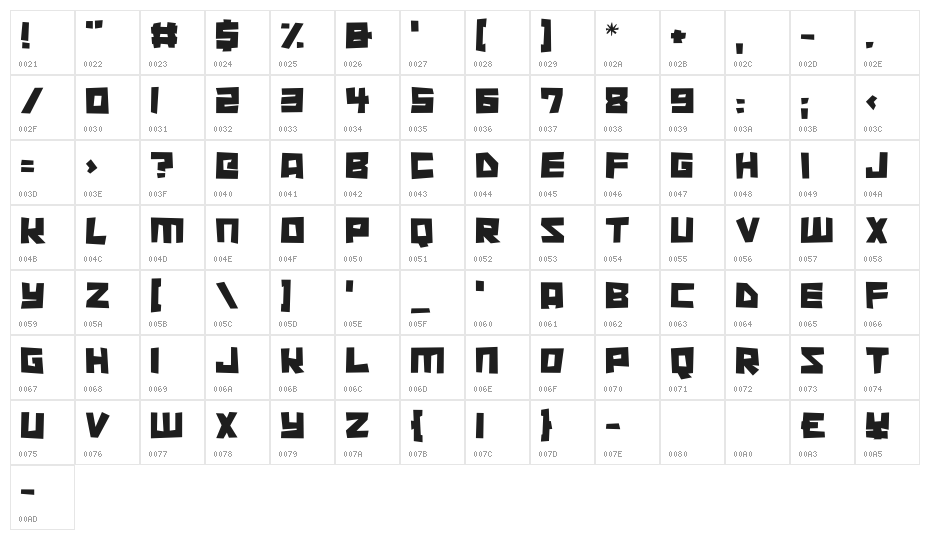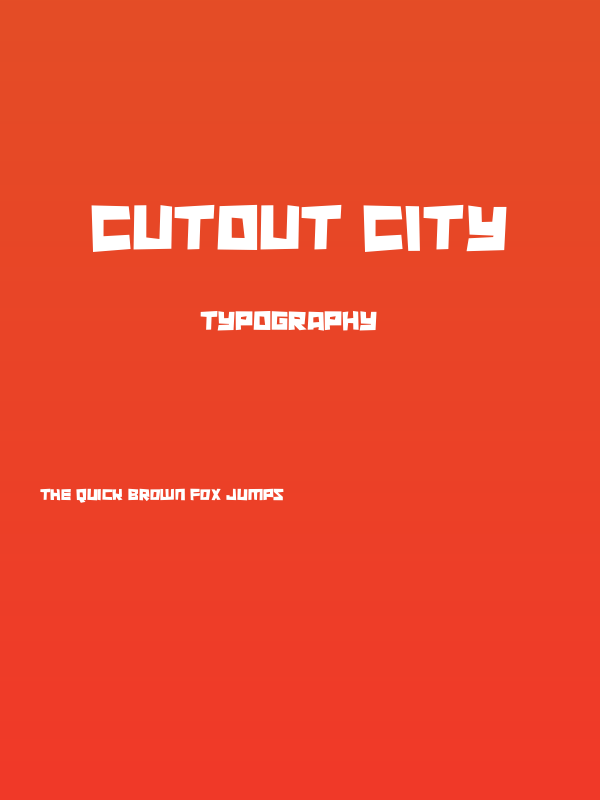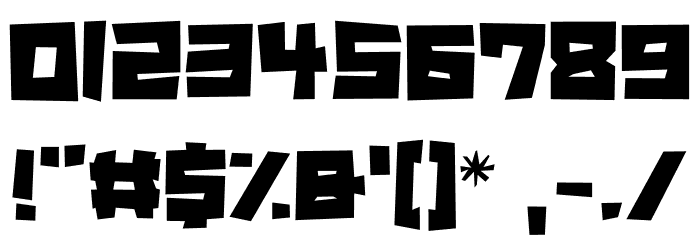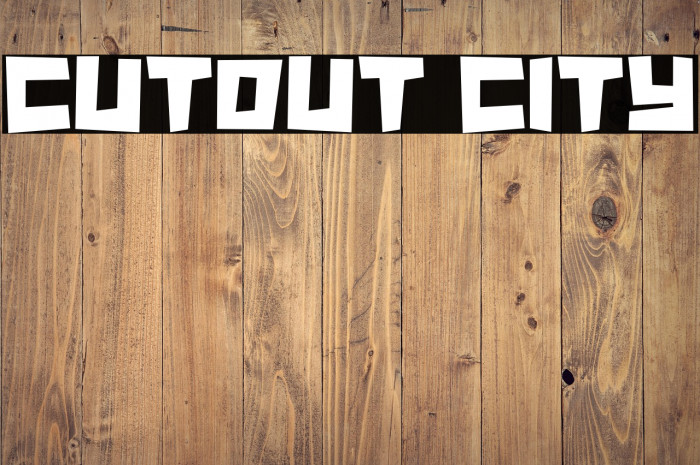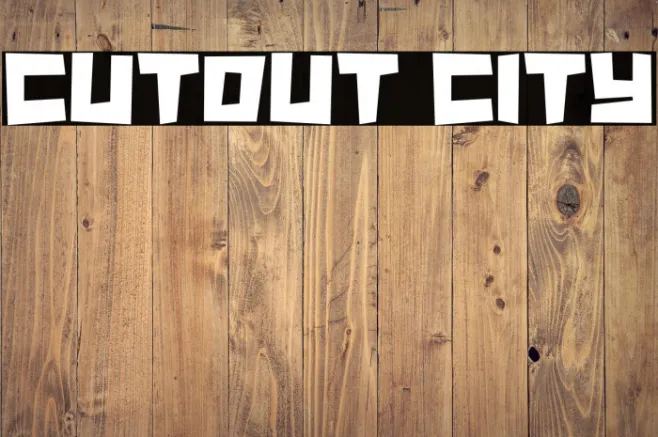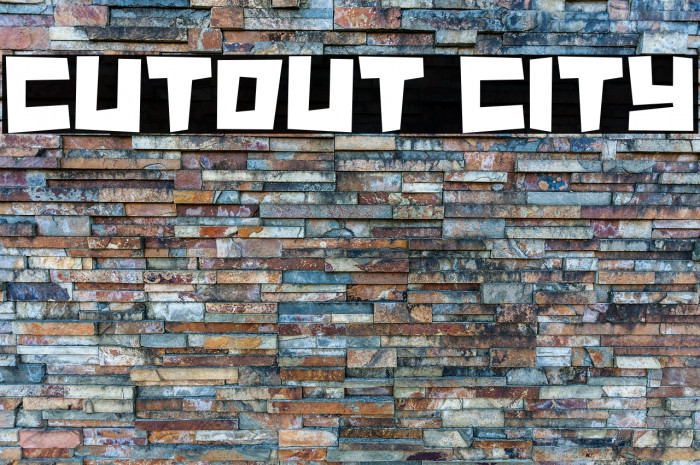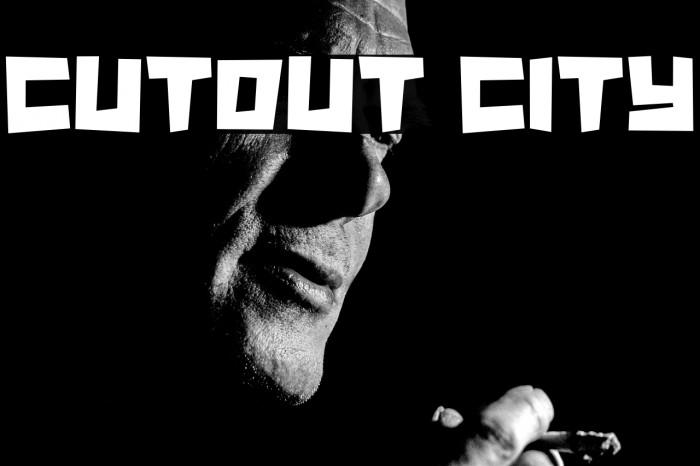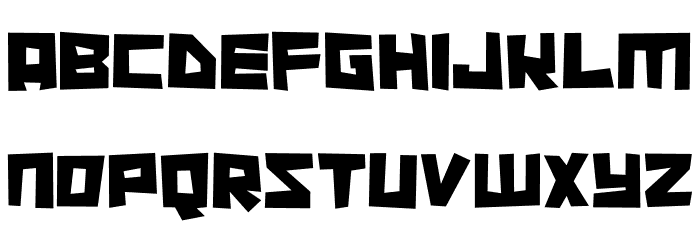
Cutout City Font
Cutout City Description
This font features a bold, angular design with a distinctly modern and edgy appearance. Each character is crafted with sharp, geometric shapes that give it a unique, cut-out look. The uppercase and lowercase letters maintain a consistent style, emphasizing boldness and creativity. The numbers and special characters follow the same design principles, ensuring a cohesive visual experience. This font's striking appearance makes it ideal for projects that require a strong visual impact.
| Proposed Projects | Ideal for posters, album covers, video game graphics, and urban-themed designs. |